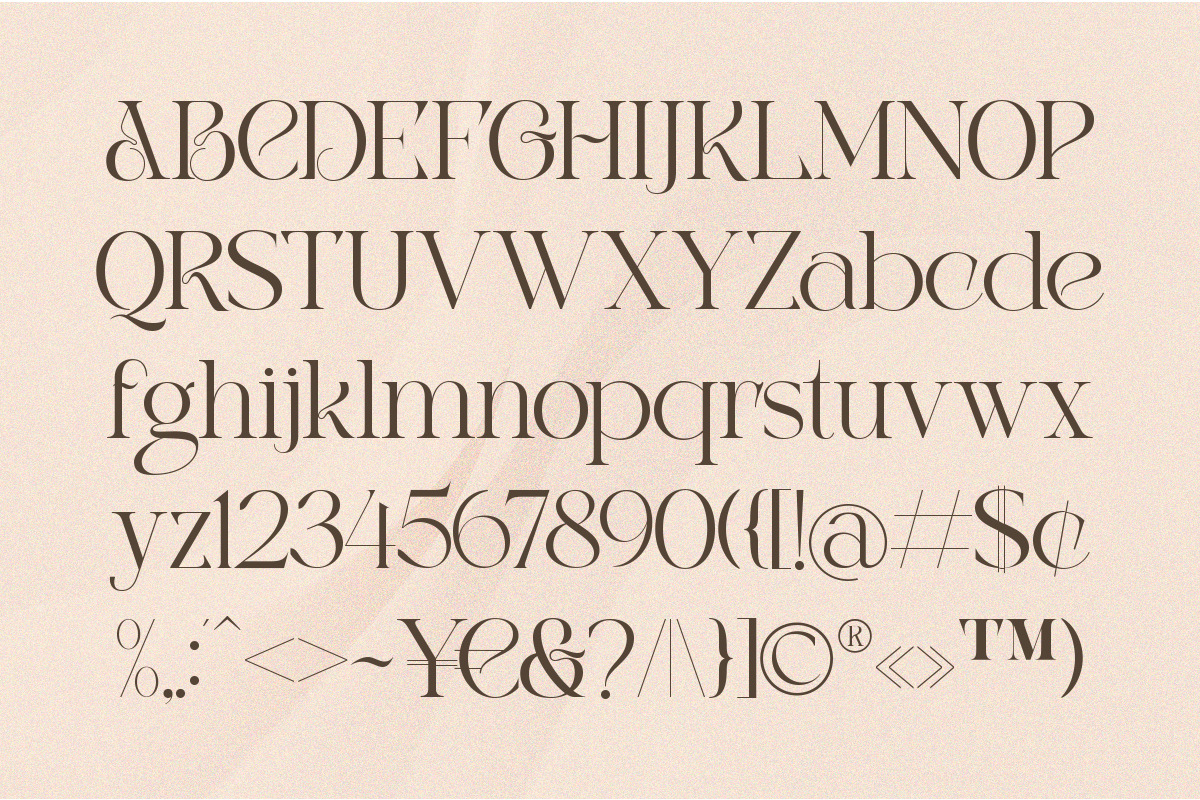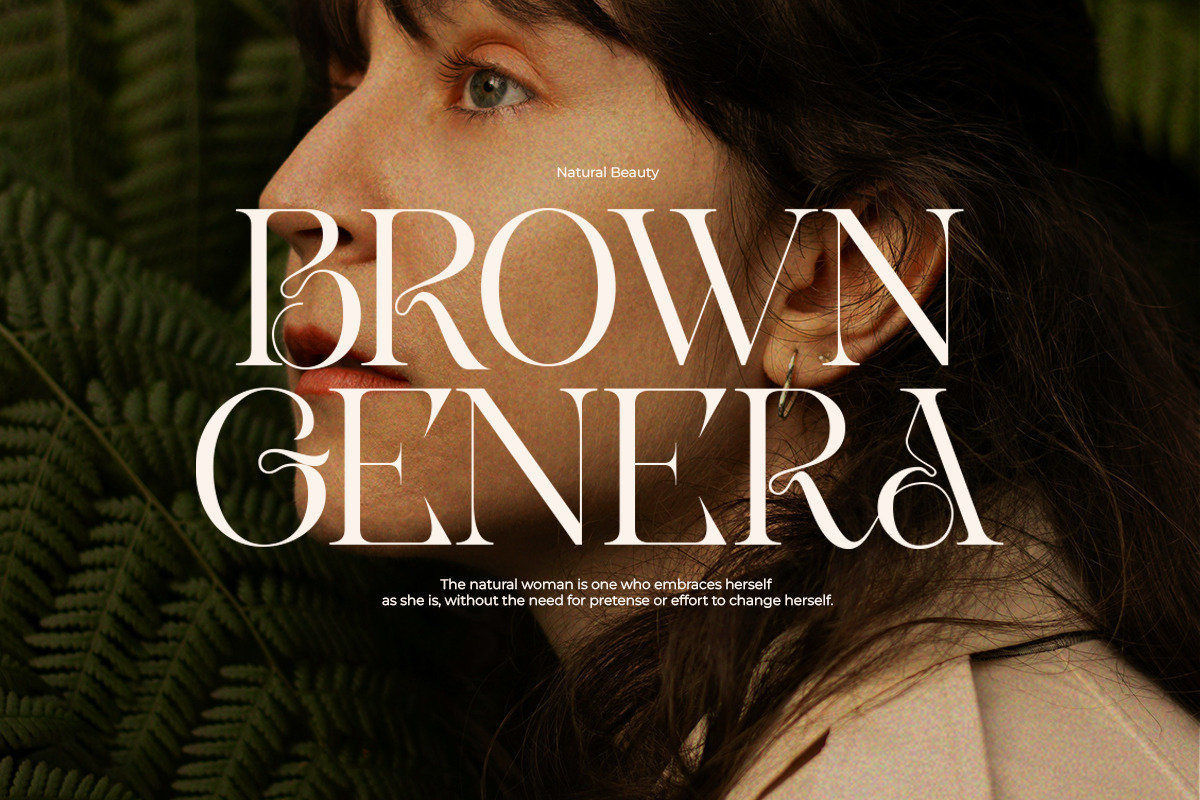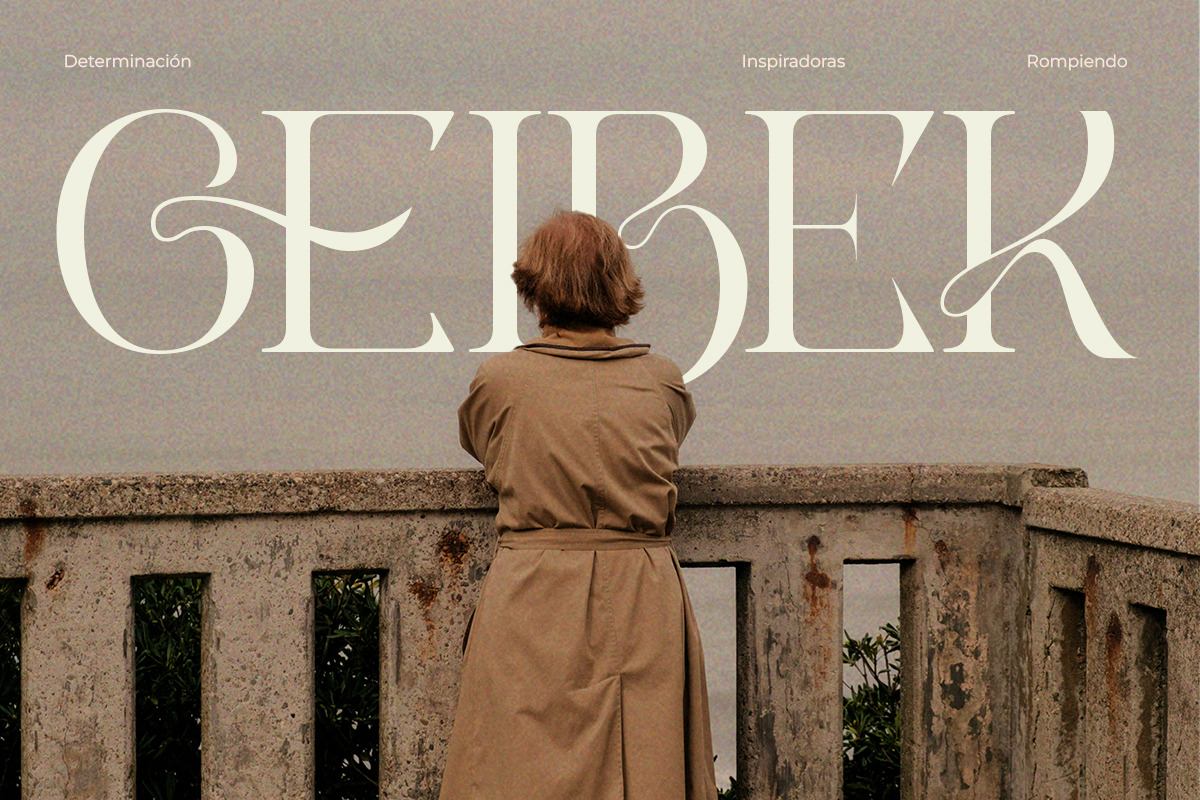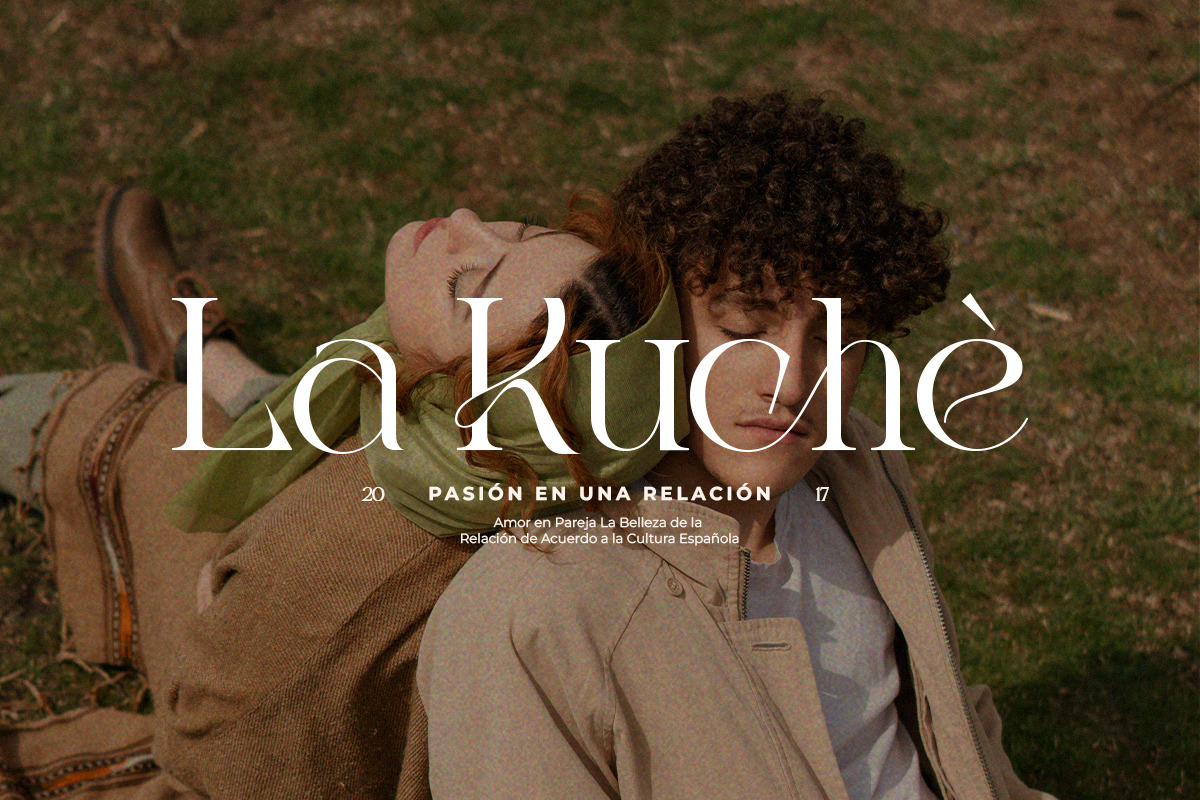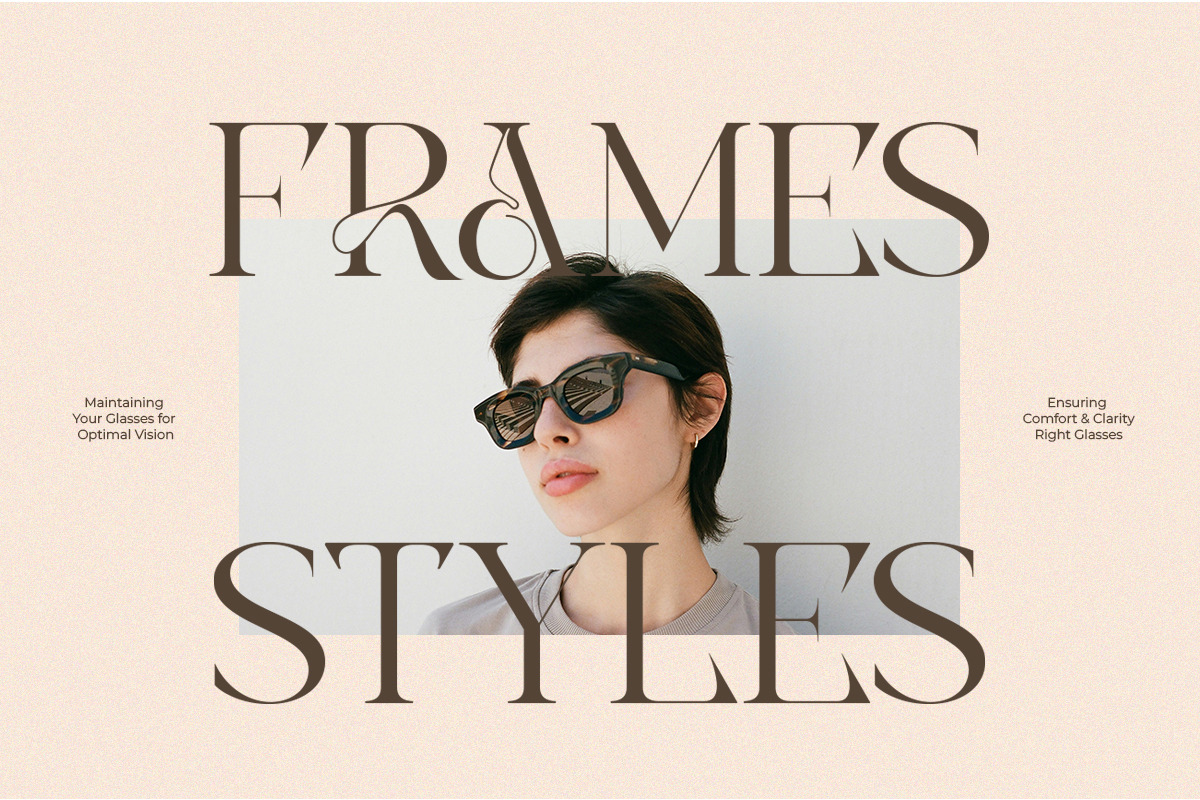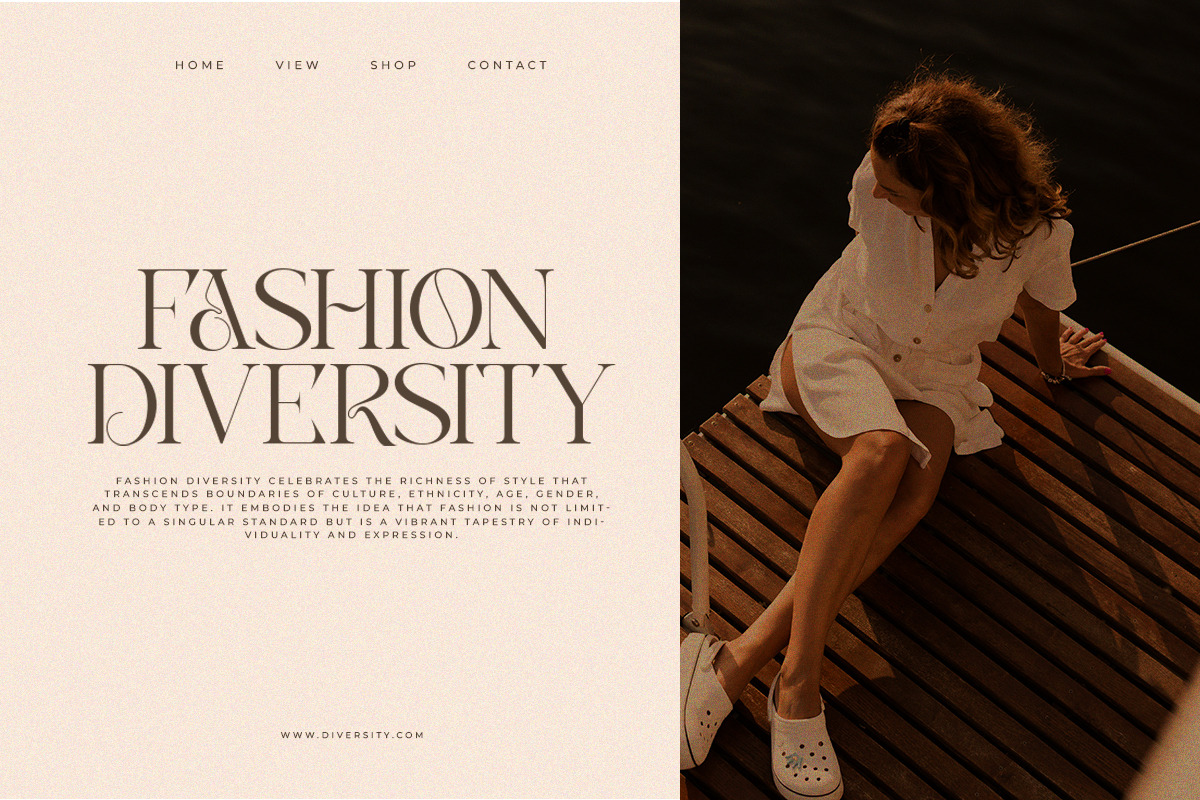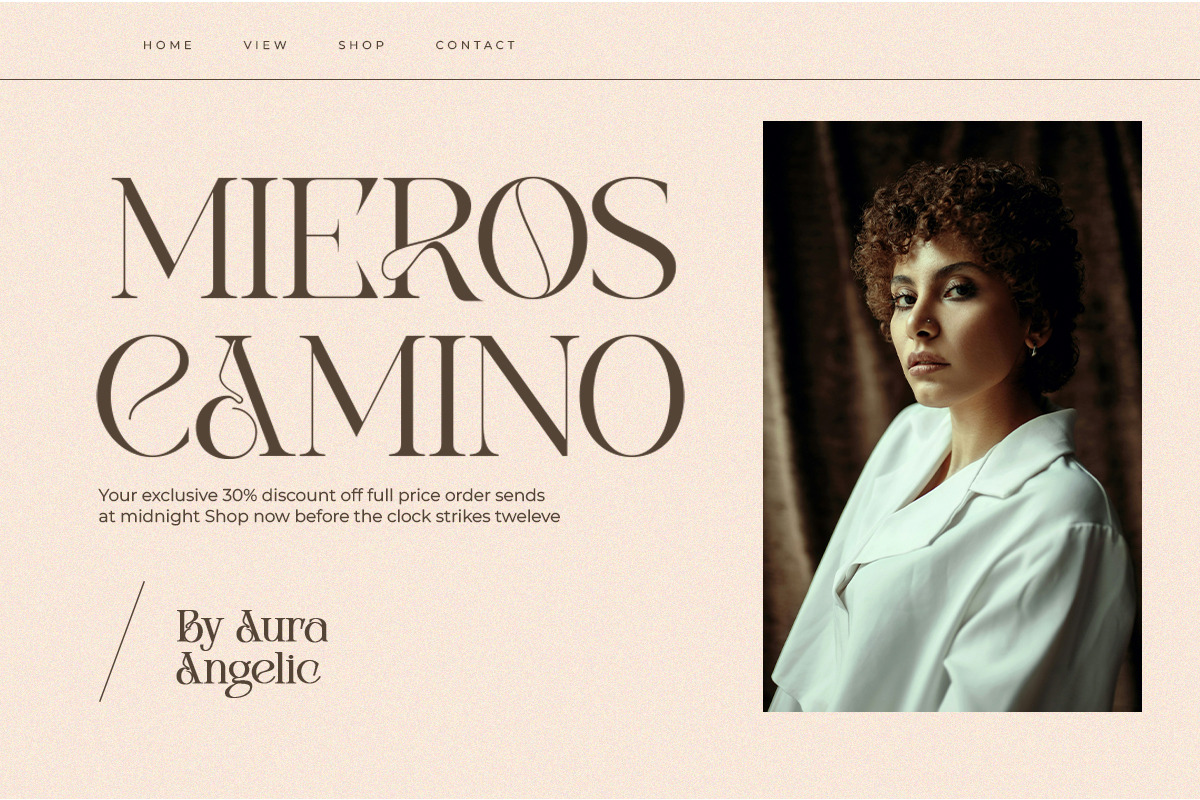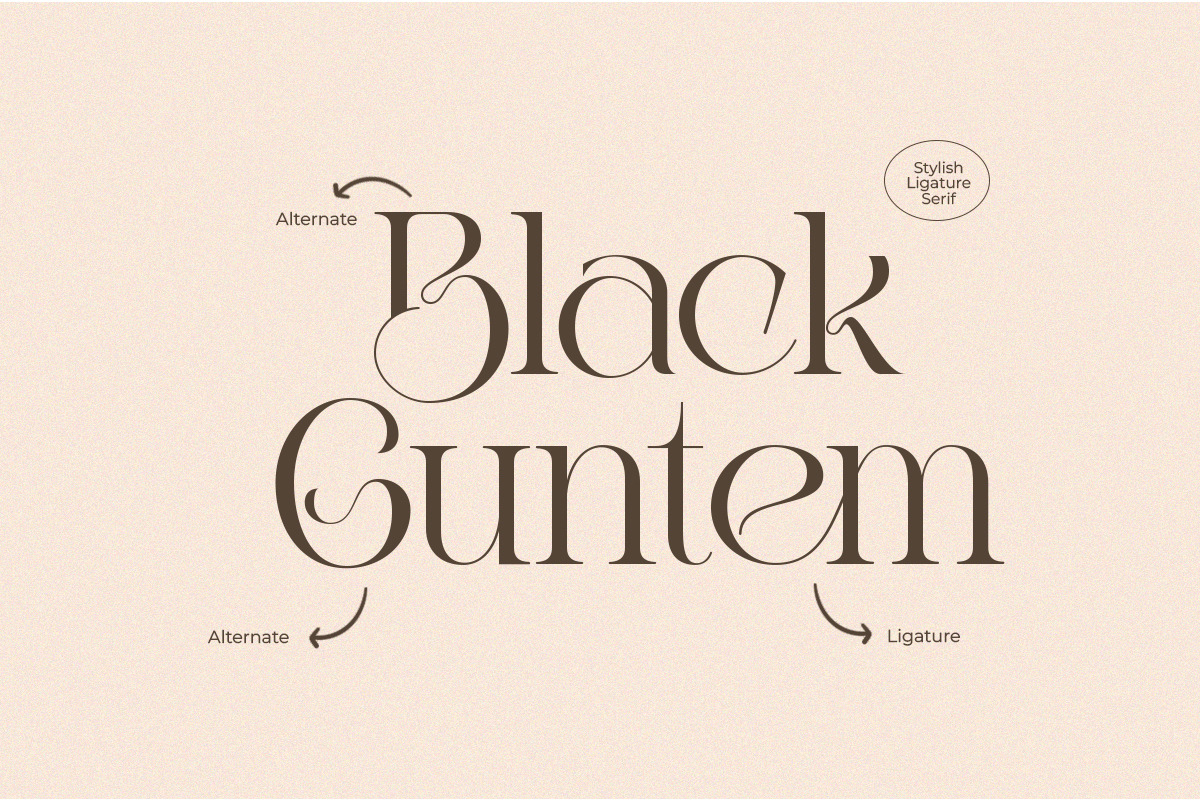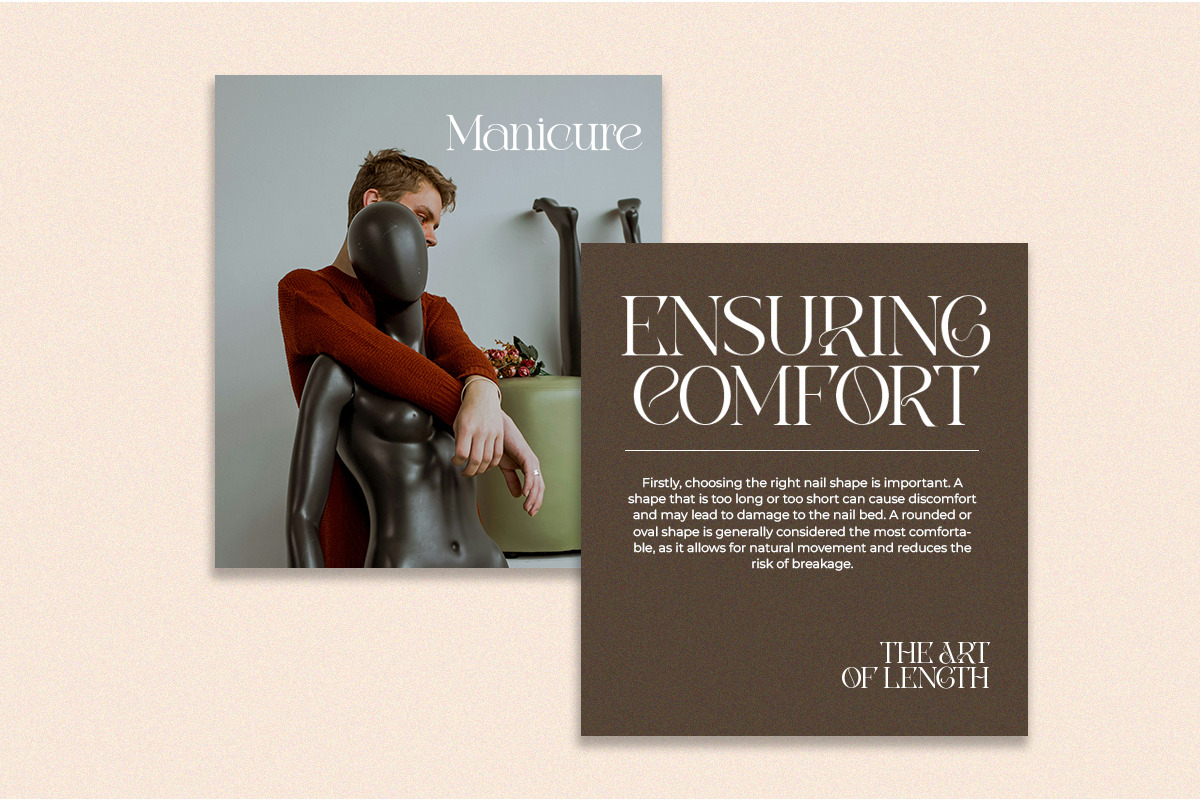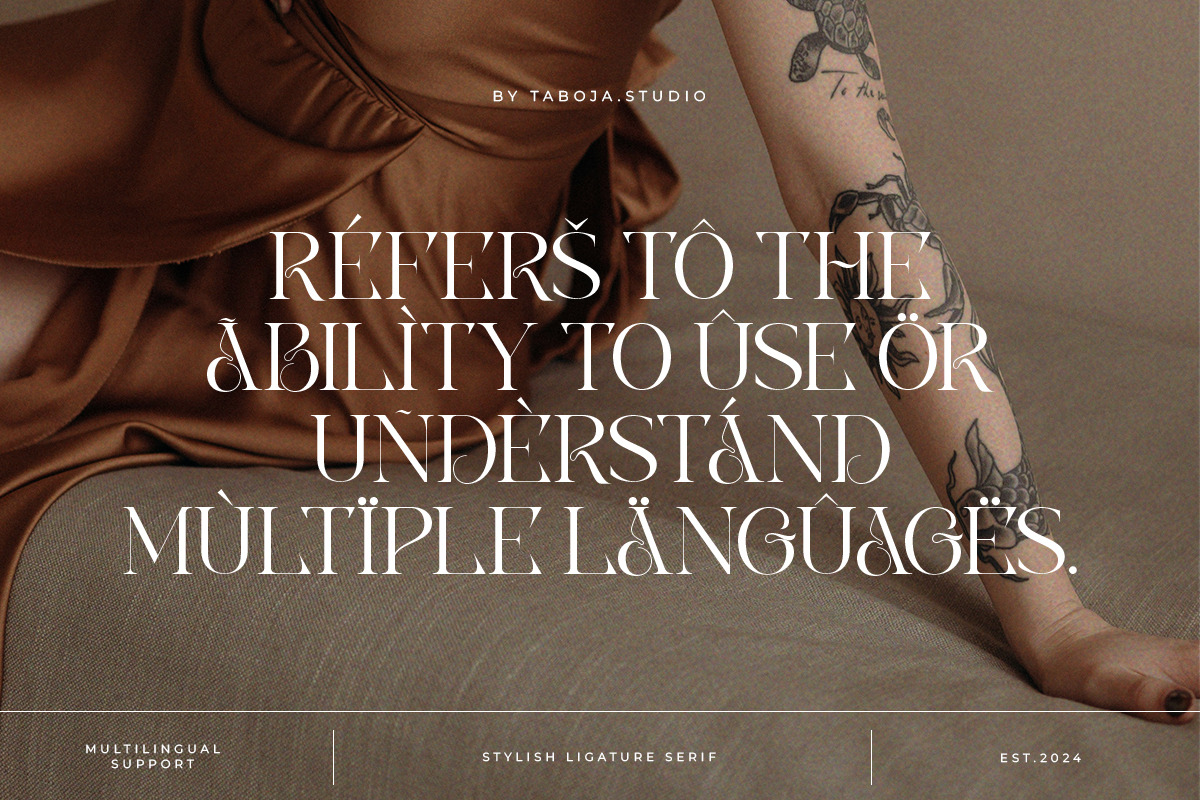
TBJ Rose Angel | Display Serif
Rose Angel stylish ligature Serif font that exudes elegance and beauty with a perfect blend of bold and thin strokes, enhanced by stylish ligatures. Each character is a testament to the seamless harmony of thickness and slenderness.
The lines of Rose Angel are designed to evoke sophistication, with serifs conveying a sense of firmness and stability. The contrast between thick and thin elements creates an appealing visual dynamic, reinforcing the beauty and luxury of each individual character.
Its meticulous design, exquisite swash alternates, and diverse ligatures make it the perfect companion for a wide range of creative projects, ensuring your work radiates sophistication and charm.